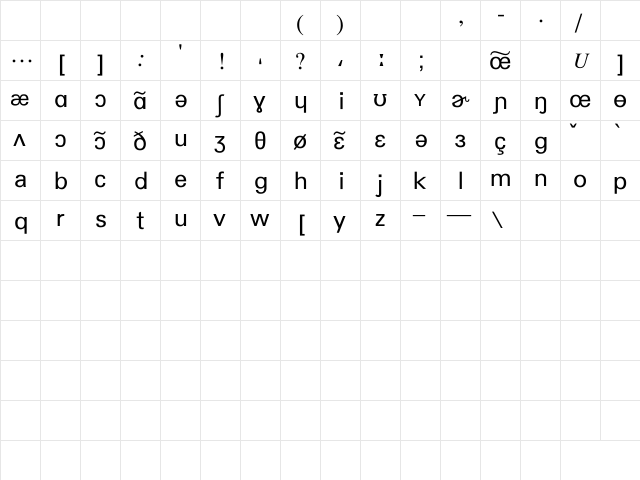
HMPhone BDC Regular
Design Context for HMPhone BDC Typeface
HMPhone BDC offers clean, dependable letterforms without strong stylistic allegiance, making it a practical choice for designers who need flexibility.
Pro Tip: Use HMPhone BDC in both headline and body roles to test its range before committing to a single application.